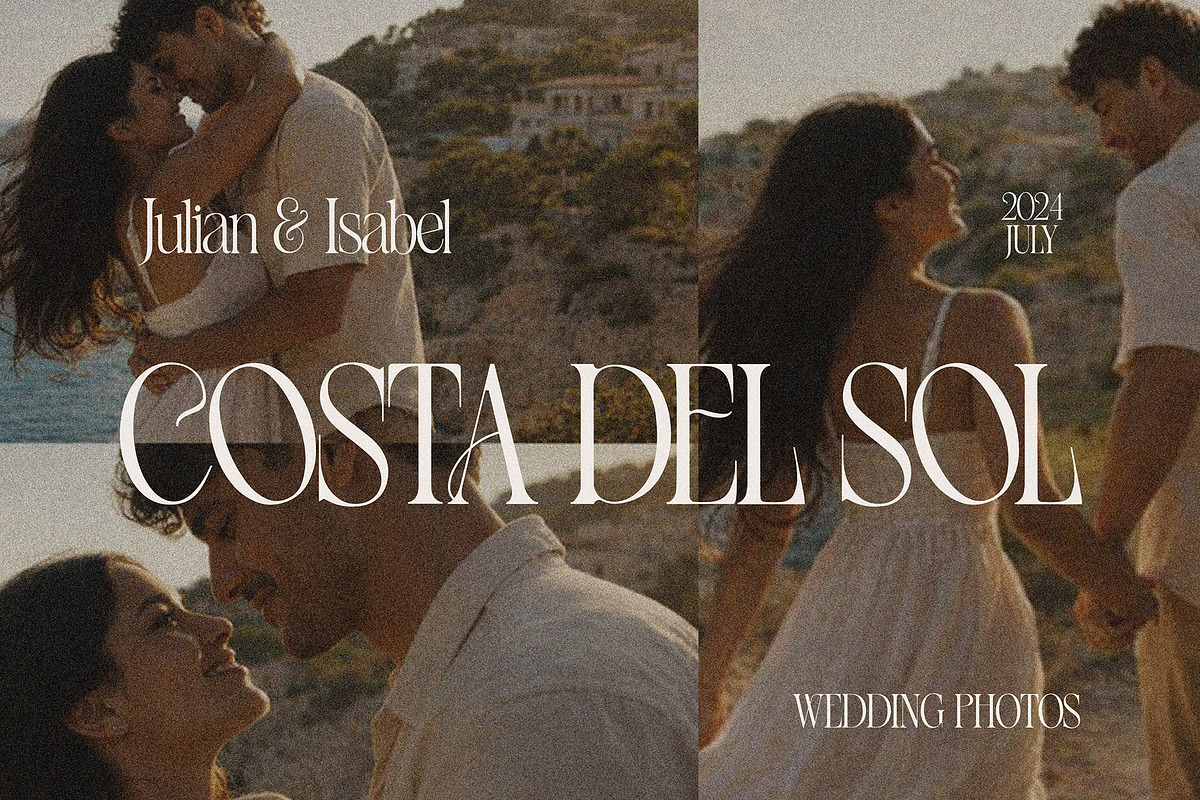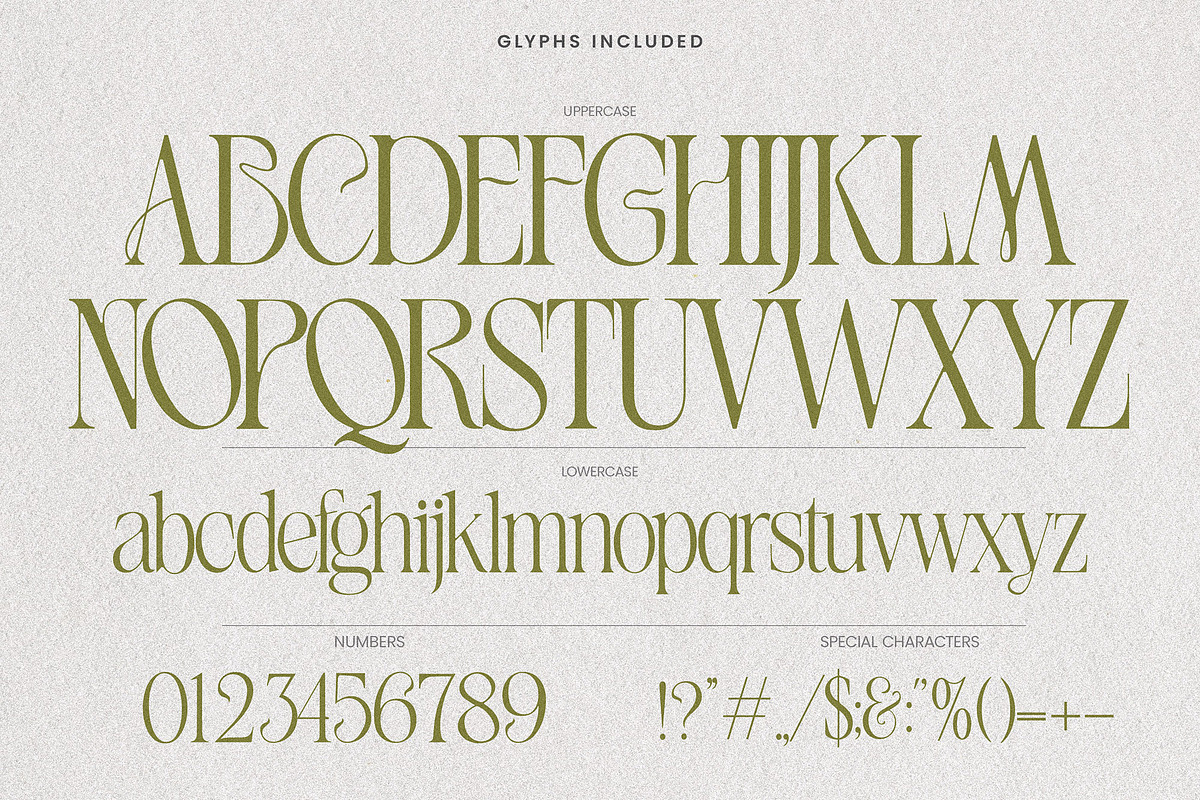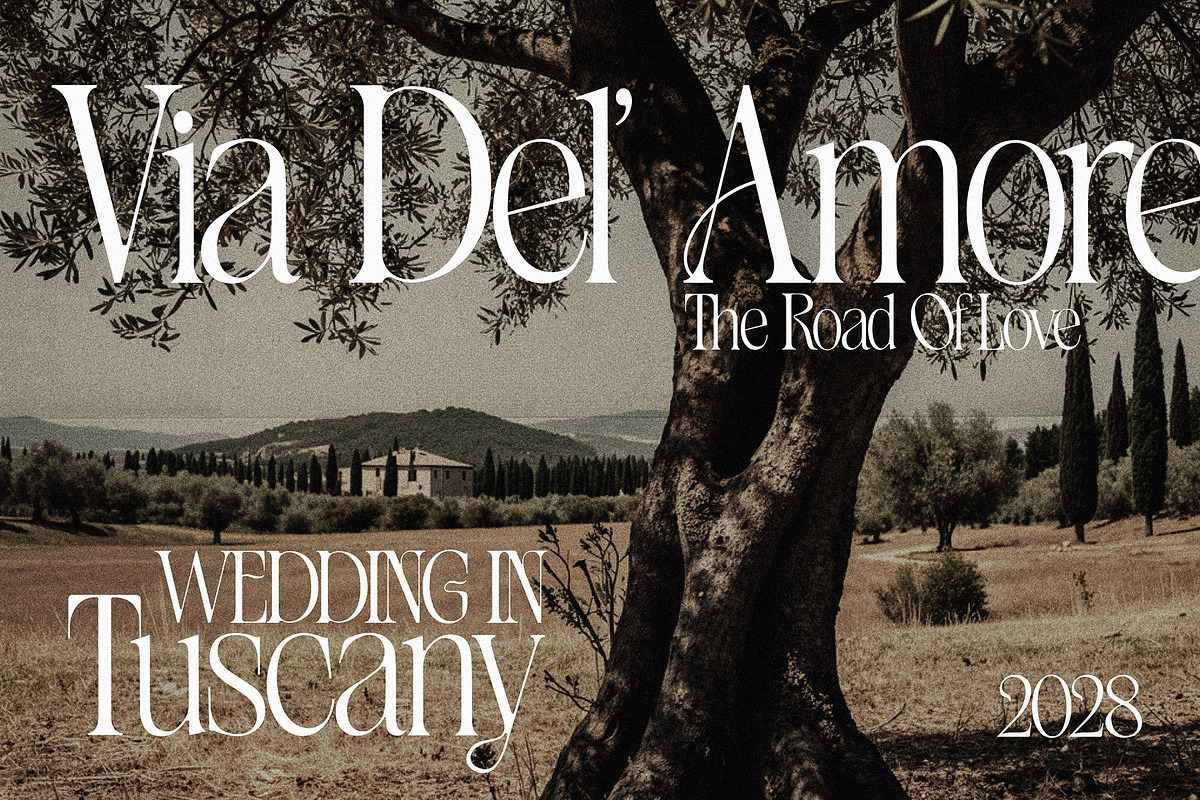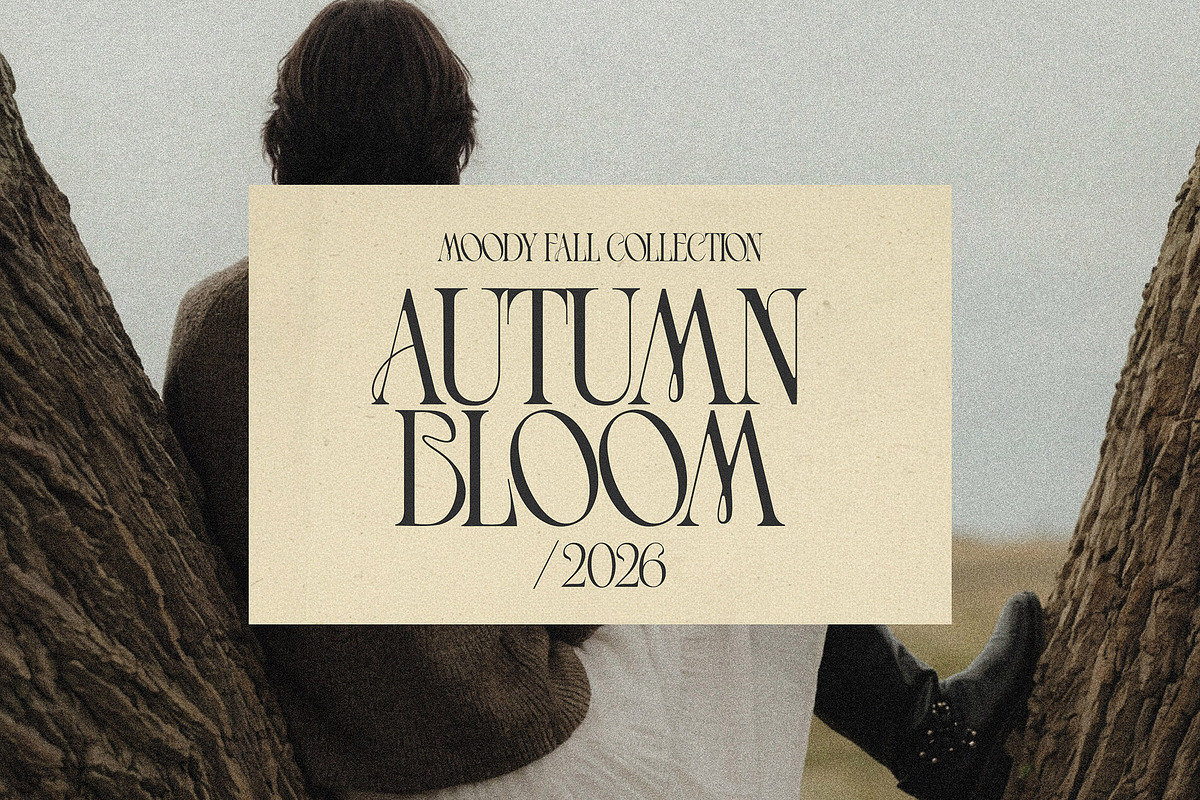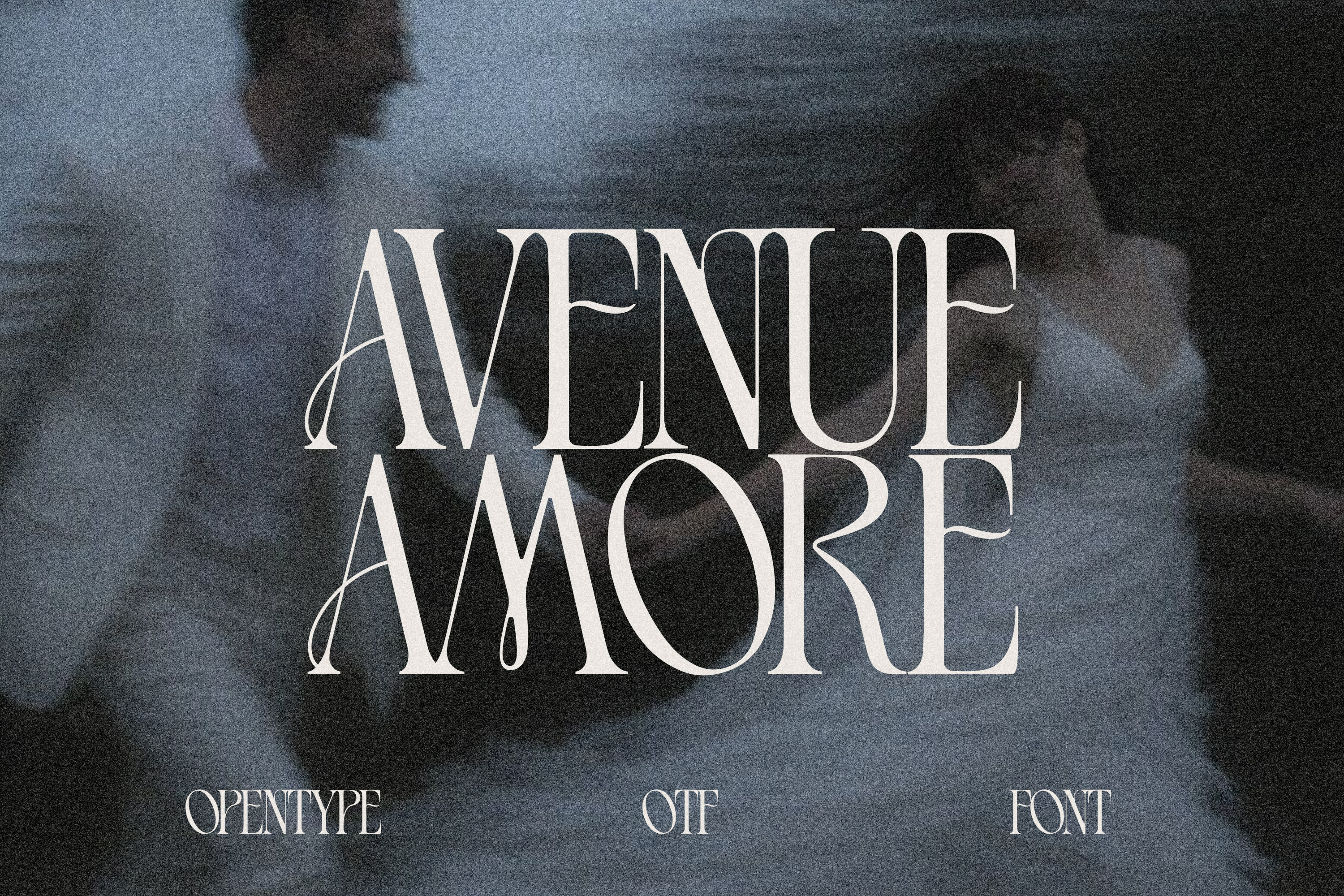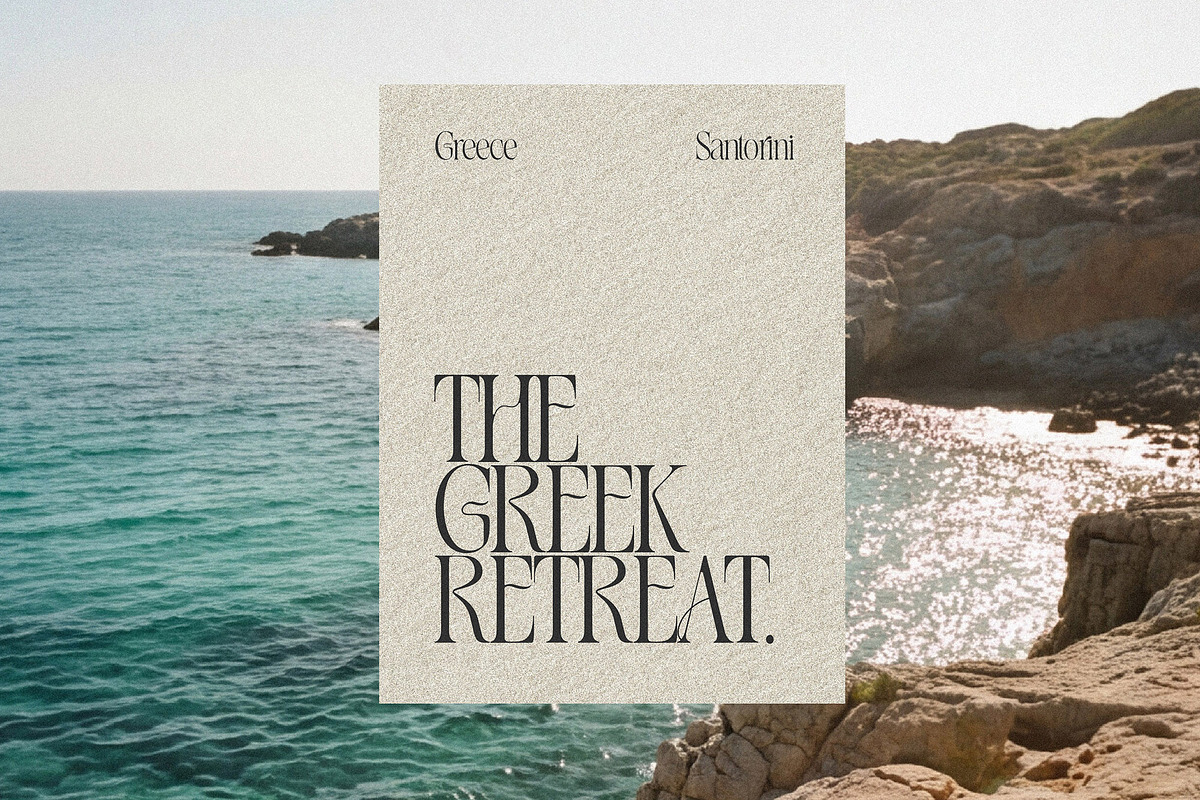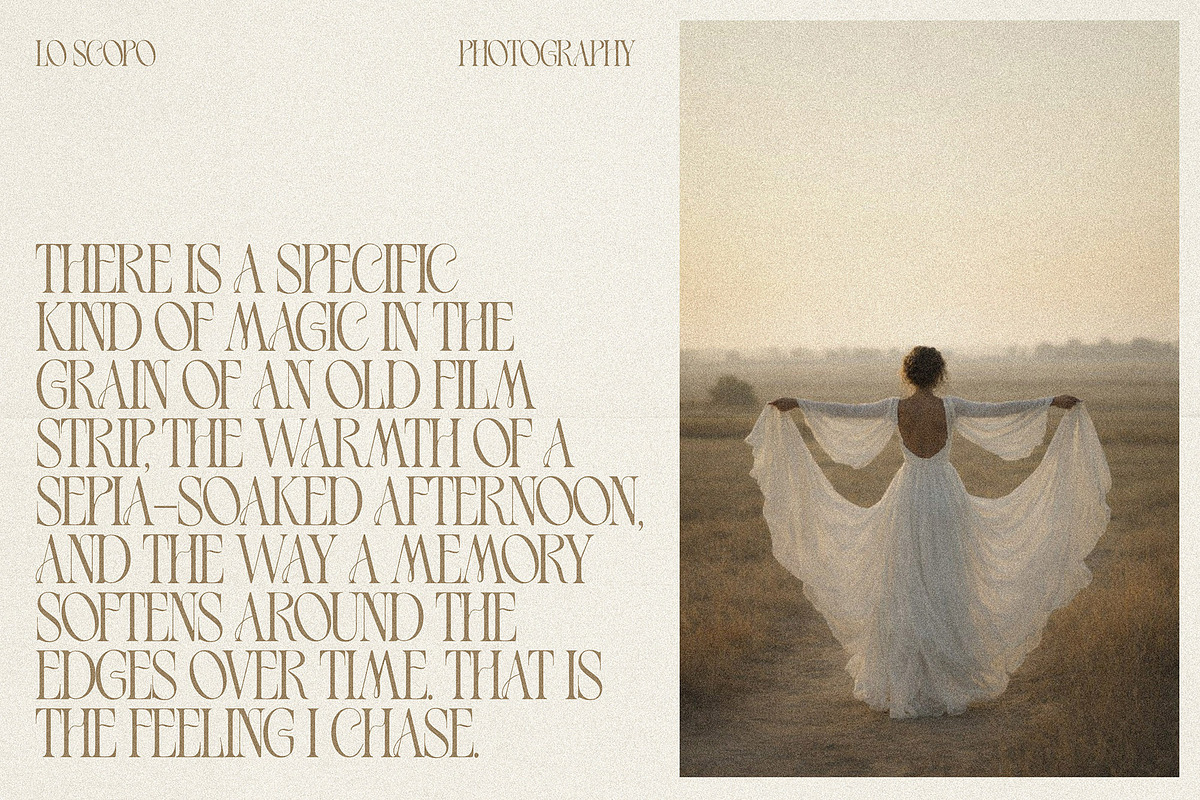
Avenue Amore - Elegant Wedding Font
Introduce a touch of timeless romance and modern sophistication to your designs with Avenue Amore.
Avenue Amore is a high-contrast, luxury display serif designed for elegant branding projects. With its sleek curves, sharp edges, and uniquely stylized ligatures, this font captures the essence of high-end editorial fashion and classic elegance.
Whether you are designing a wedding suite that needs to feel expensive, a brand identity that requires a chic & modern focal point, or a magazine layout that demands attention, Avenue Amore is the right font for you.
This Font Is Perfect For:
- Luxury Brand Identities: Perfect for logos involving jewelry, perfume, high-end fashion, or interior design firms.
- Editorial Design: Ideal for magazine mastheads, fashion editorials, and book covers that require a luxurious aesthetic.
- Wedding Stationery: Use it for the names of the couple on invitations, save-the-dates, and welcome signage to create a modern, chic wedding vibe.
- Hospitality Branding: Excellent for boutique hotels, upscale restaurants, or cocktail bars looking for a logo that suggests history and class.
- Packaging Design: Great for wine labels, candle boxes, or organic skincare products where typography is the main visual element.